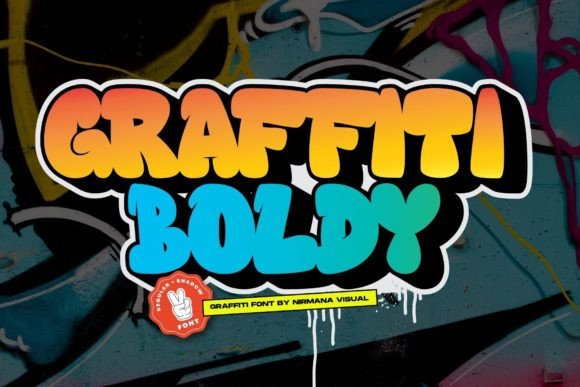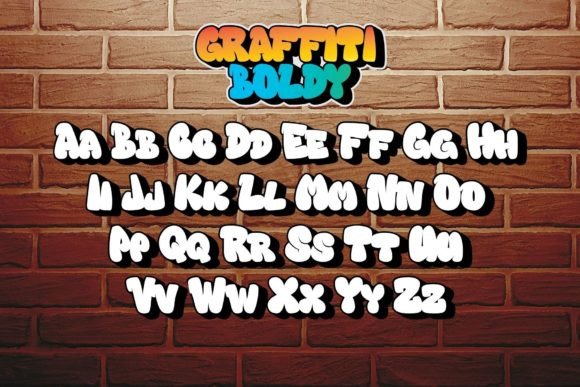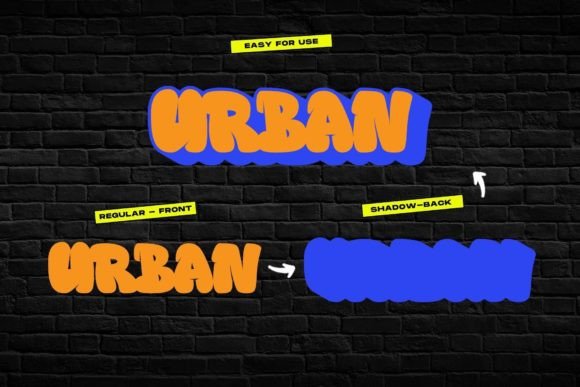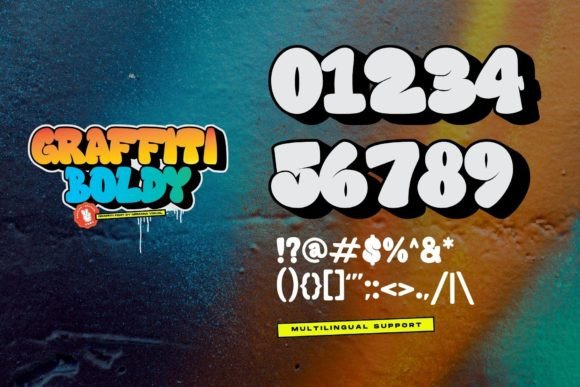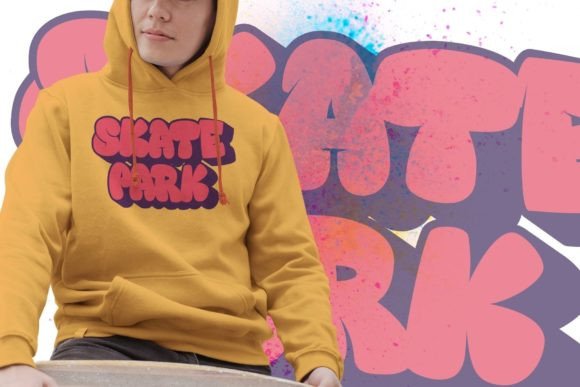
Graffiti Boldy Font
Graffiti Boldy is a fun, urban-style display font. No matter the topic, this font will be an incredible asset to your fonts’ library, as it has the potential to elevate any creation.